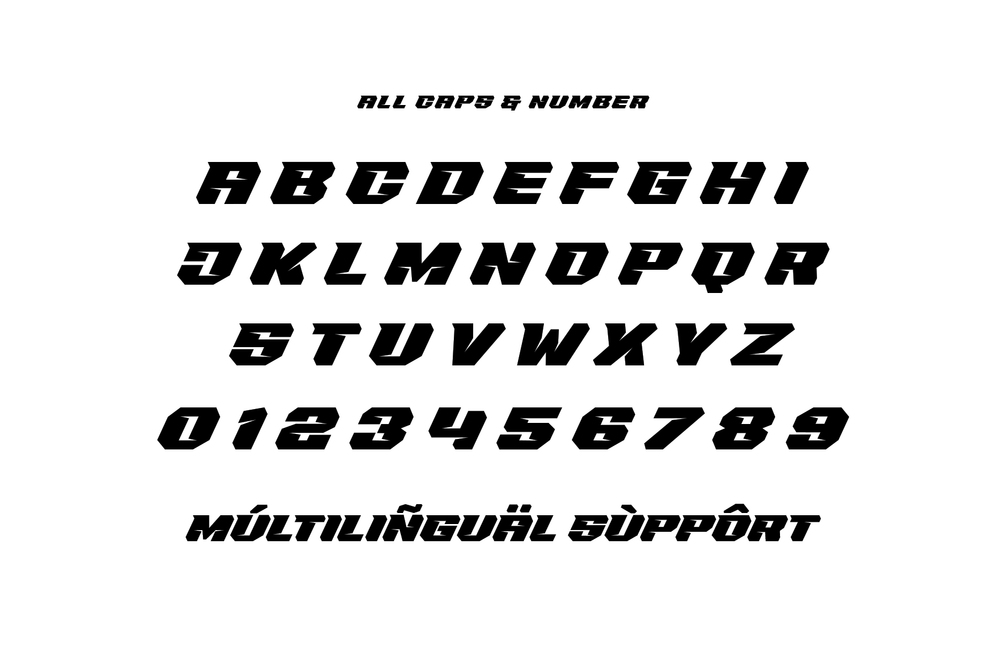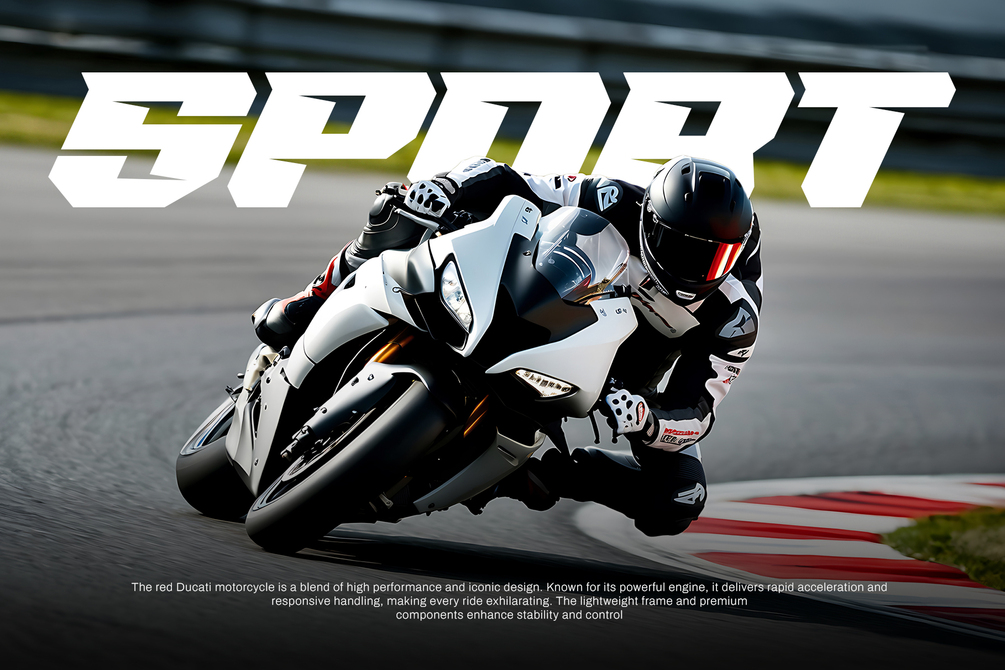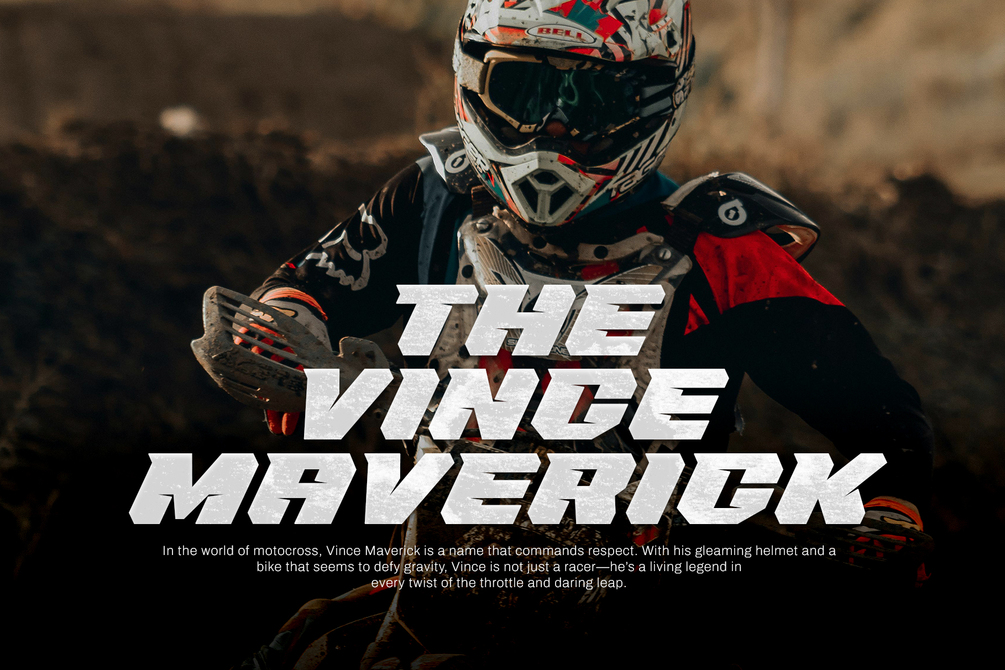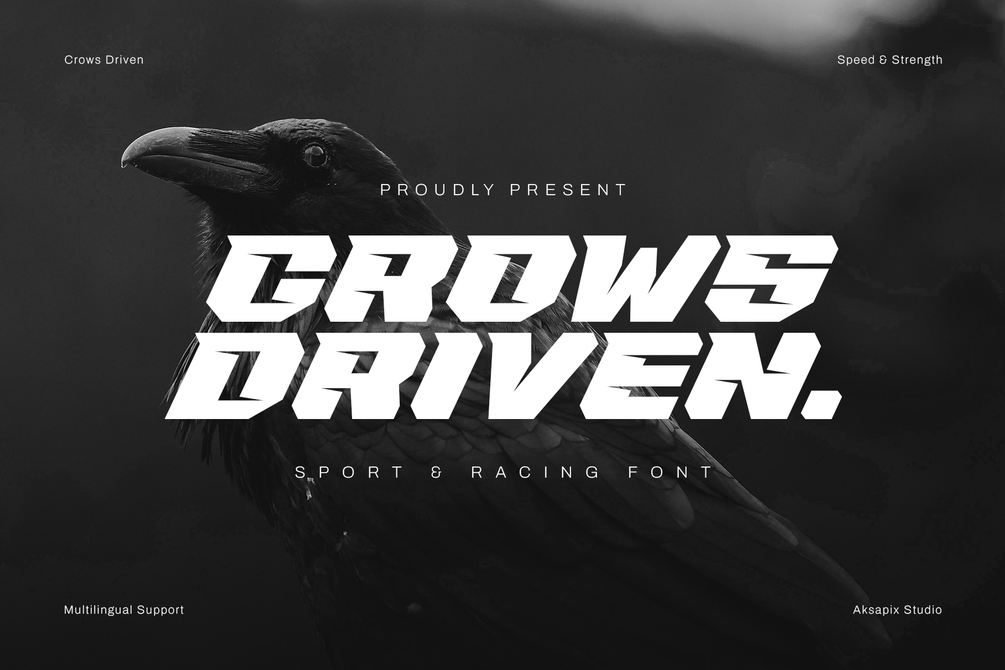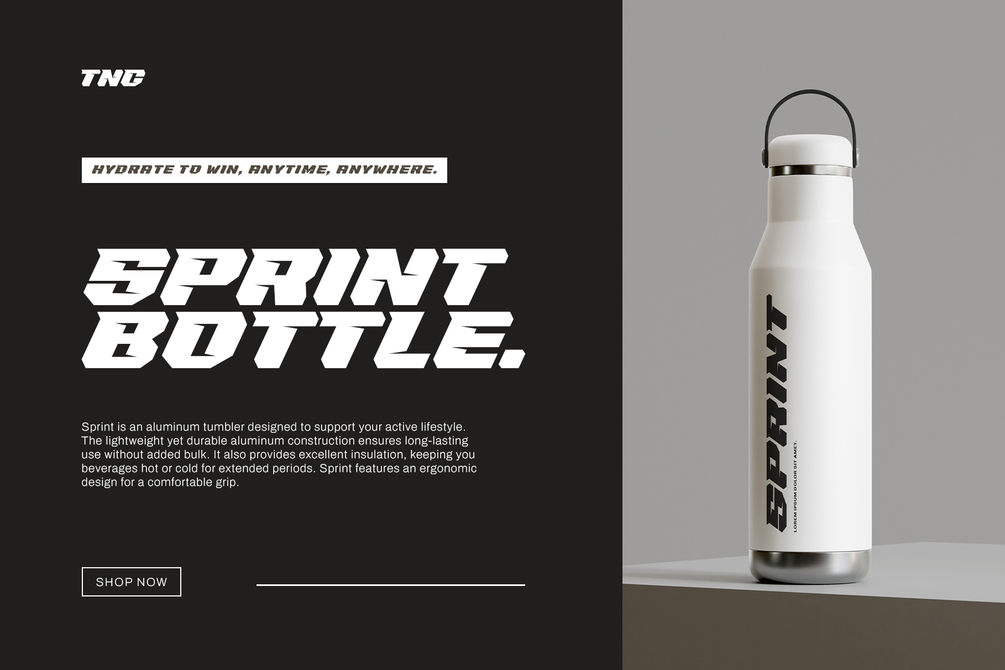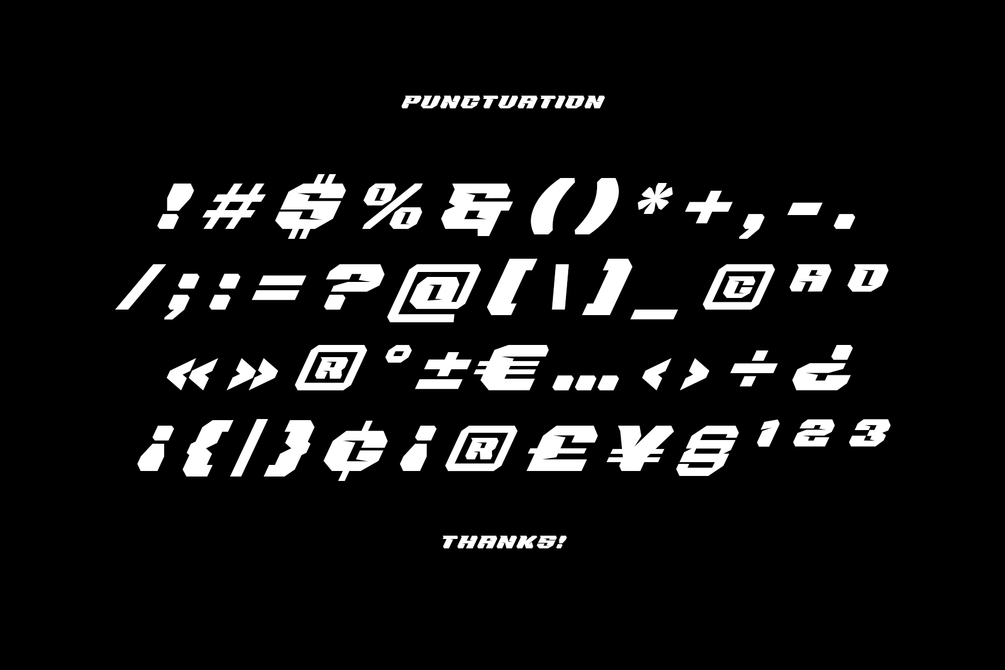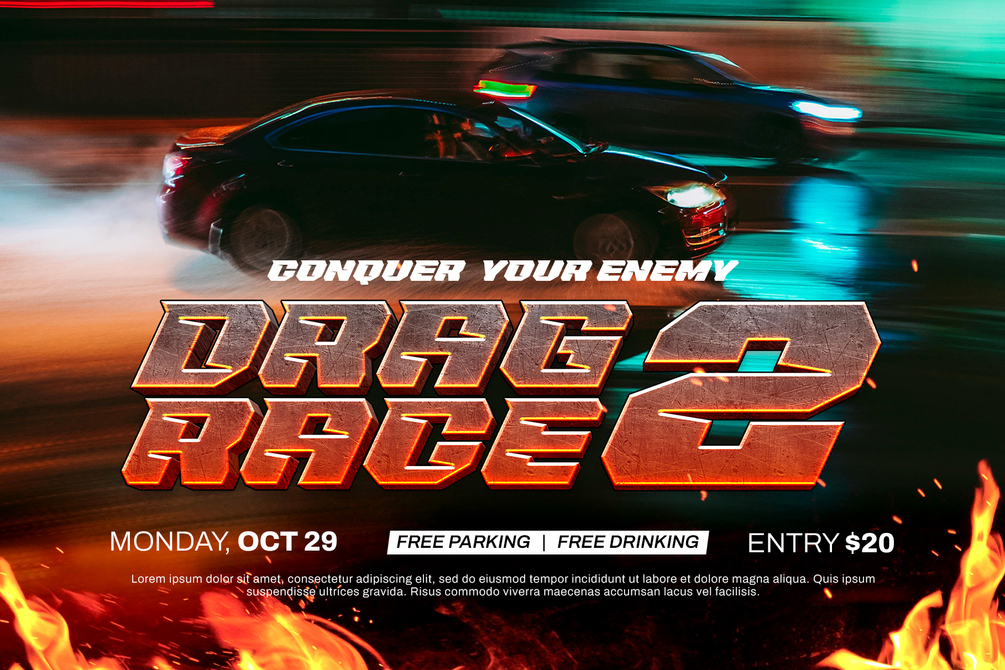
Crows Driven - Sport and Racing Font
Introducing Crows Driven - Sport and Racing Font, a powerful and dynamic typeface designed for speed and adrenaline-fueled designs. This font features an all-caps character set, along with numbers and punctuation, providing a bold and consistent look. With multilingual support, Crows Driven is perfect for a variety of design projects that require a strong, sporty feel.
Features:
• All Caps: Uniform uppercase characters for a bold and impactful design.
• Numbers & Punctuation: Comprehensive set for all design requirements.
• Multilingual Support: Compatibility with various languages for global use.
• Simple and Strong: Perfect for clean and straightforward sports designs.
Perfect For:
• Racing Team Logos
• Dynamic Posters
• Sports Branding
• High-Energy Social Media Graphics
Rev up your designs with the energetic and bold style of Crows Driven - Sport and Racing Font. Whether you're crafting logos for racing teams or designing sports apparel, this font will add the perfect touch of speed and power.
"Bold and dynamic, the modern world of sport, from racing to football, embodies speed, strength, and powerful athleticism, fueled by adrenaline and consistent energy, both in the gym and in the exhilarating realm of esports."